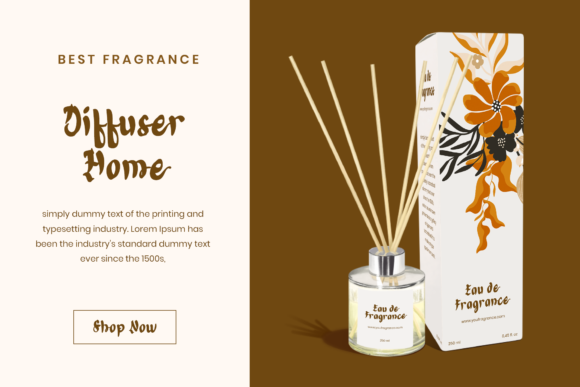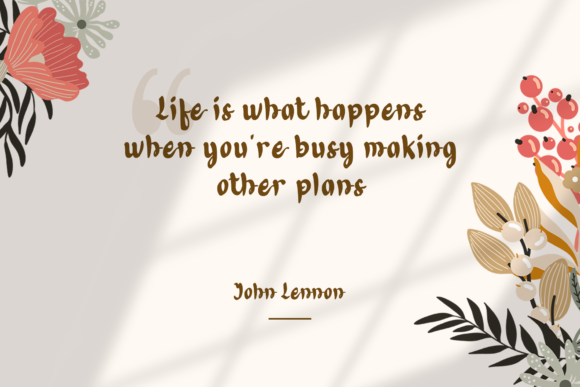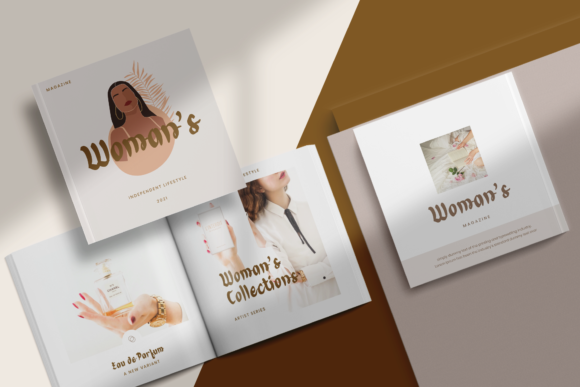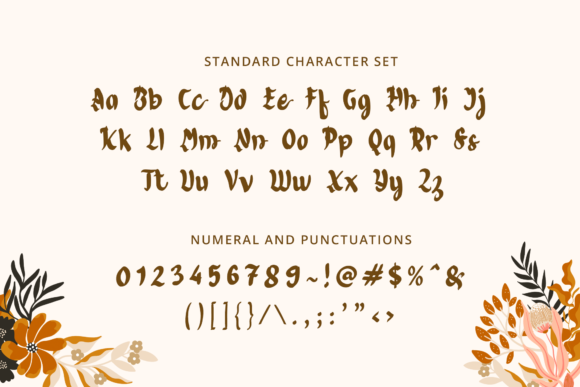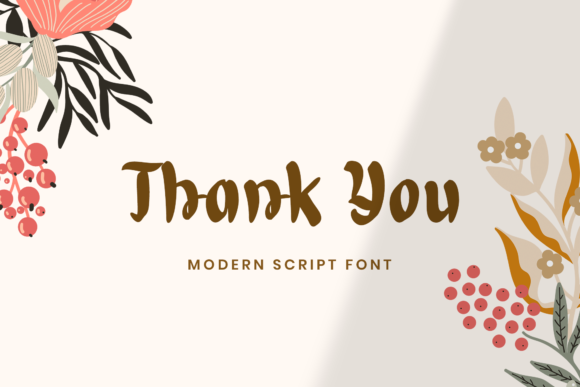
Introduction to Magnollesty Font Font
Fonts play a crucial role in design, and the Magnollesty Font font is a typeface that brings both character and versatility to any project. Whether you’re working on a branding project, a website, or a print design, the Magnollesty Font font offers a unique style that can elevate your work.
Magnollesty is a bold and friendly handwritten font.
Simple and easy to use, this font will be very beautiful if you mix it with your various craft designs .
Key Features of Magnollesty Font Font
Why Choose Magnollesty Font Font?
The Magnollesty Font font is more than just a typeface – it’s a design tool that helps you communicate your message with style and clarity. Its unique character set and versatile design make it suitable for a wide range of applications, from elegant invitations to bold headlines.
With its carefully crafted letterforms and balanced proportions, the Magnollesty Font font ensures readability and visual appeal across all mediums.
What makes Magnollesty Font font special?
The Magnollesty Font font stands out with its unique design, exceptional readability, and versatility across various design applications.